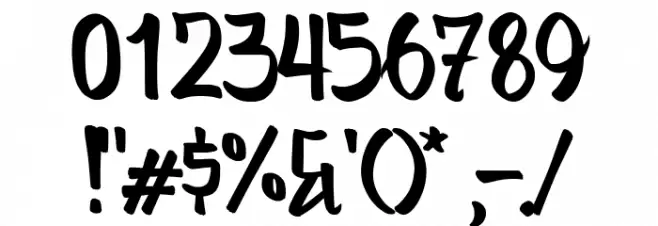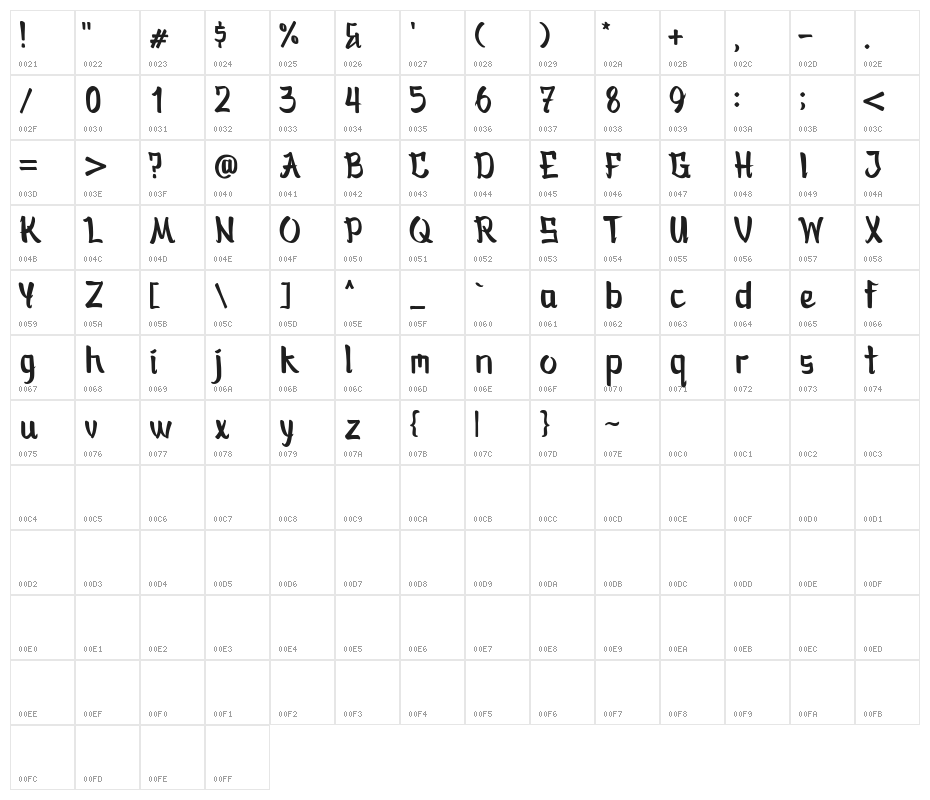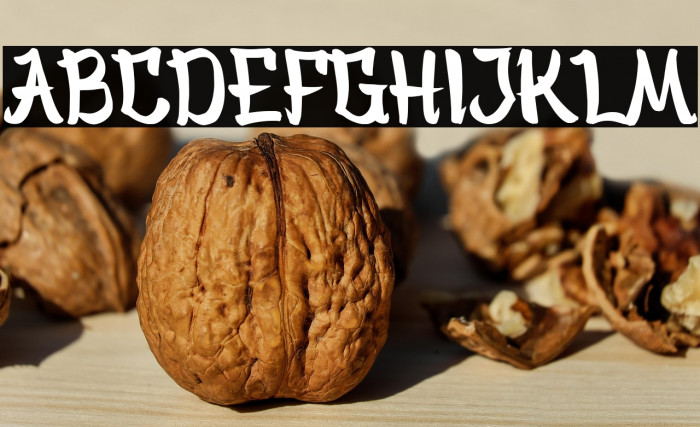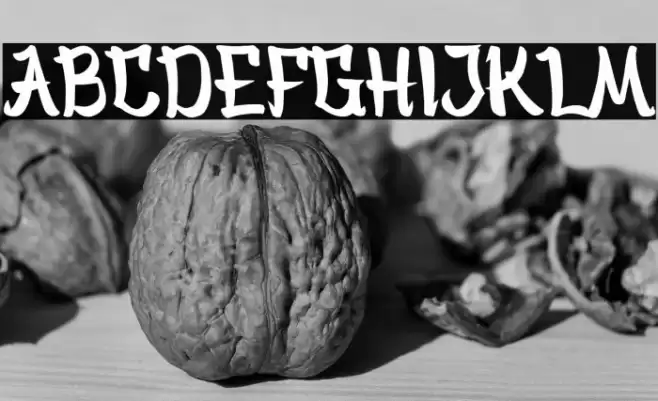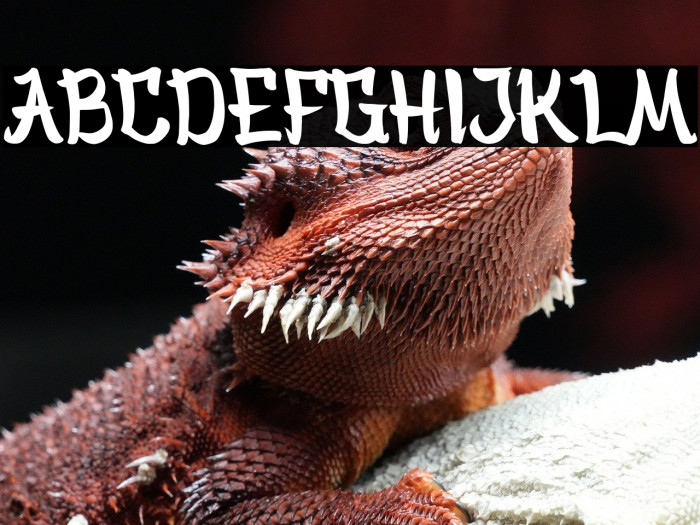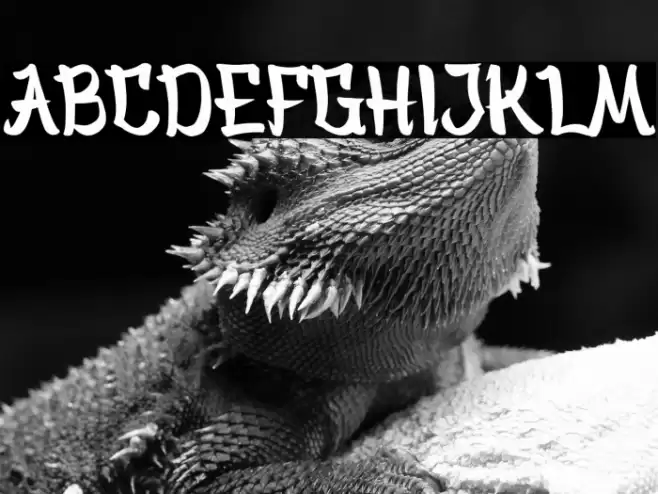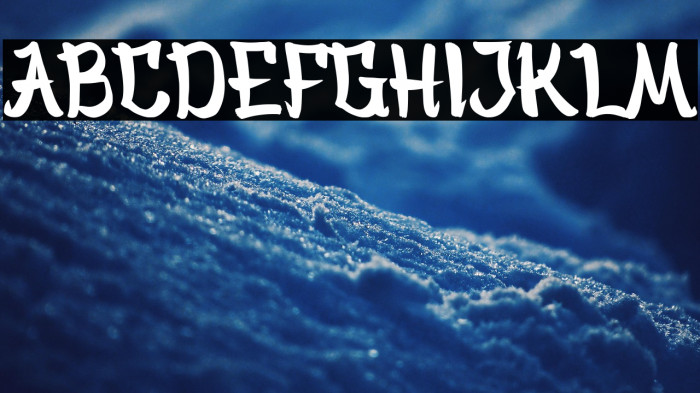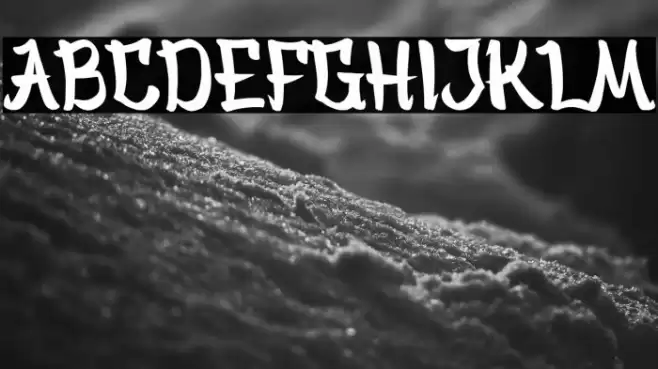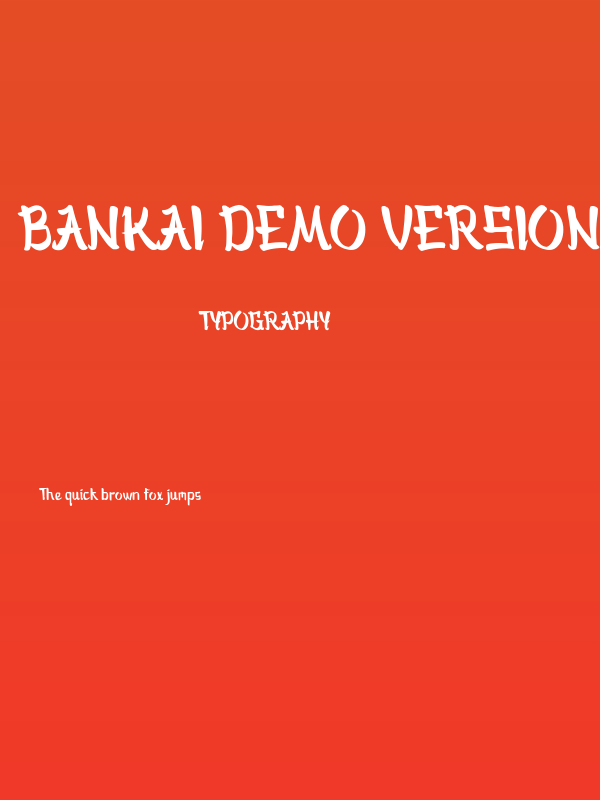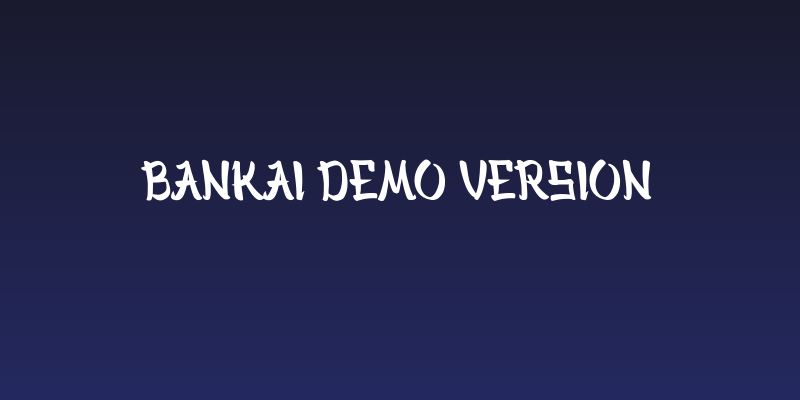
Bankai Demo Version Font
Bankai Demo Version Description
This font features a bold and dynamic style with a hand-drawn appearance, characterized by its thick strokes and slightly irregular shapes. The uppercase letters are prominent and expressive, while the lowercase letters maintain a consistent flow, adding to the font's energetic feel. The numbers are bold and easily readable, complementing the overall design. Special characters are uniquely styled, enhancing the font's playful and artistic nature. This font's distinctive look makes it suitable for creative projects that require a touch of personality and flair.
| Use Case | Logos, Posters, Creative Designs |
| Proposed Projects | Ideal for posters, logos, branding, and creative designs that need a bold, artistic touch. |